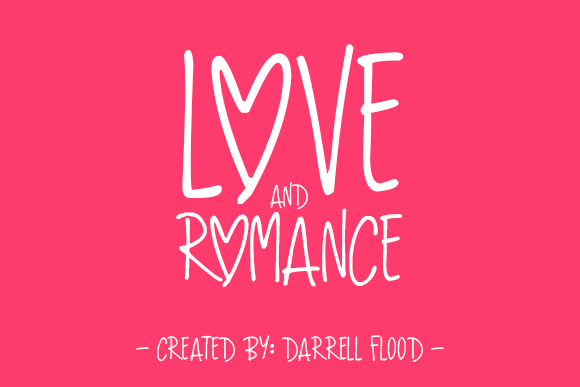
Introduction to Love and Romance Font
Love and Romance is the ultimate hand-drawn love font.
The lowercase ‘o’ is replaced with a cute drawing of a heart Easily add some love to your designs, simply by just typing text.
Key Features of Love and Romance Font
Why Choose Love and Romance Font?
Love and Romance Font offers exceptional quality and versatility, making it a valuable addition to your design toolkit. Whether you’re creating for personal projects or commercial use, Love and Romance Font delivers professional results.